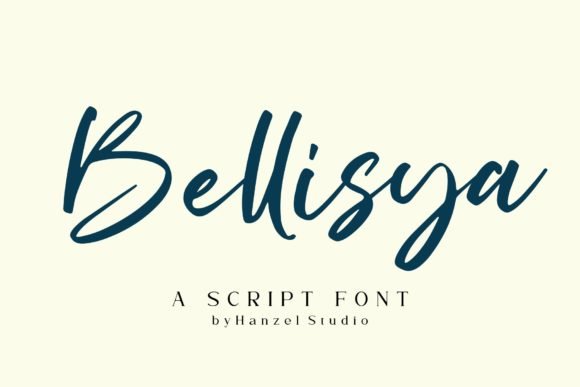
Introduction to Bellisya Font
Bellisya is a relaxed and timeless handwritten font.
Fall in love with its incredibly versatile style and use it to create gorgeous wedding invitations, beautiful stationary art, eye-catching social media posts, and much more .
Key Features of Bellisya Font
Why Choose Bellisya Font?
Bellisya Font offers exceptional quality and versatility, making it a valuable addition to your design toolkit. Whether you’re creating for personal projects or commercial use, Bellisya Font delivers professional results.